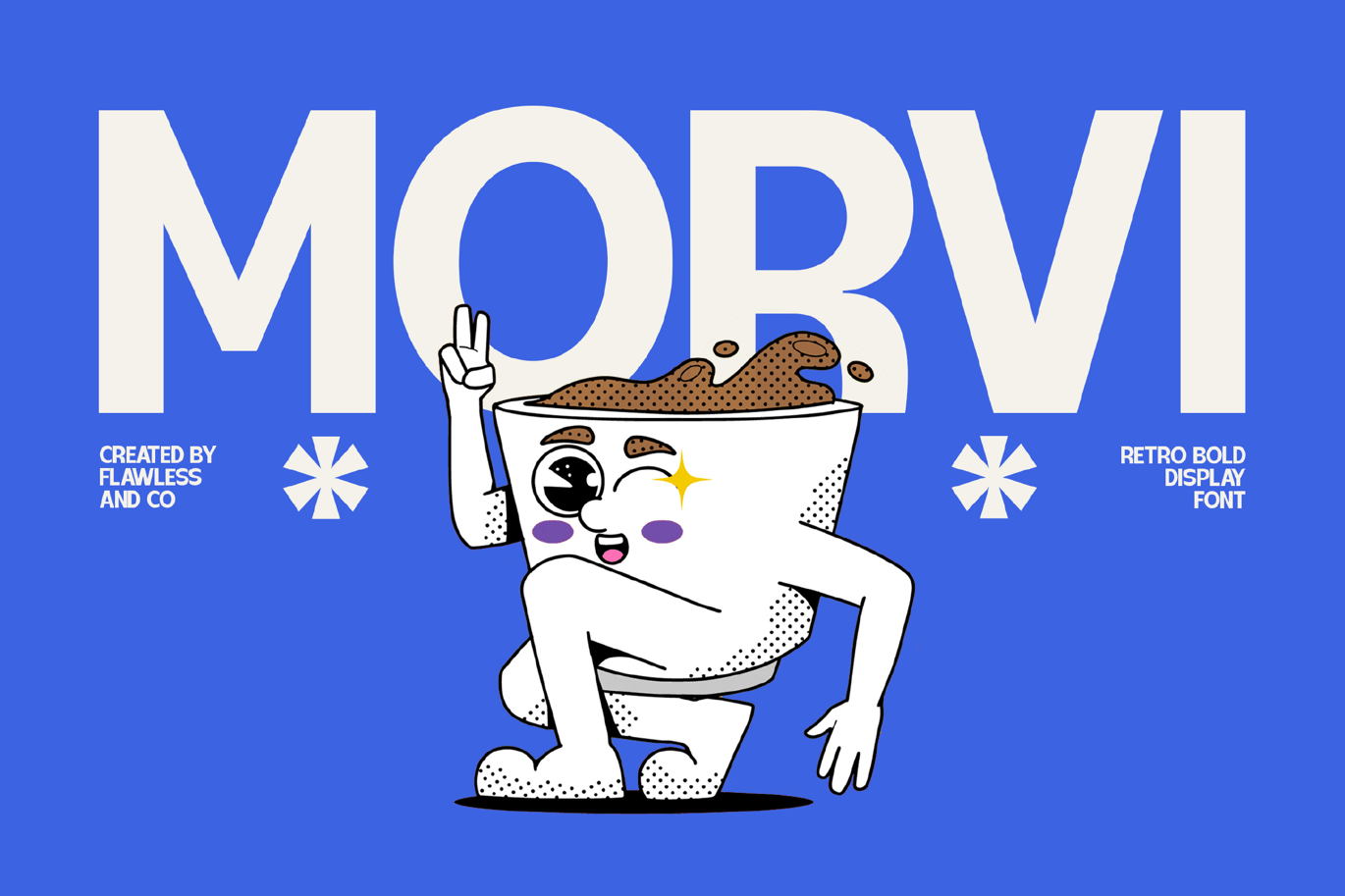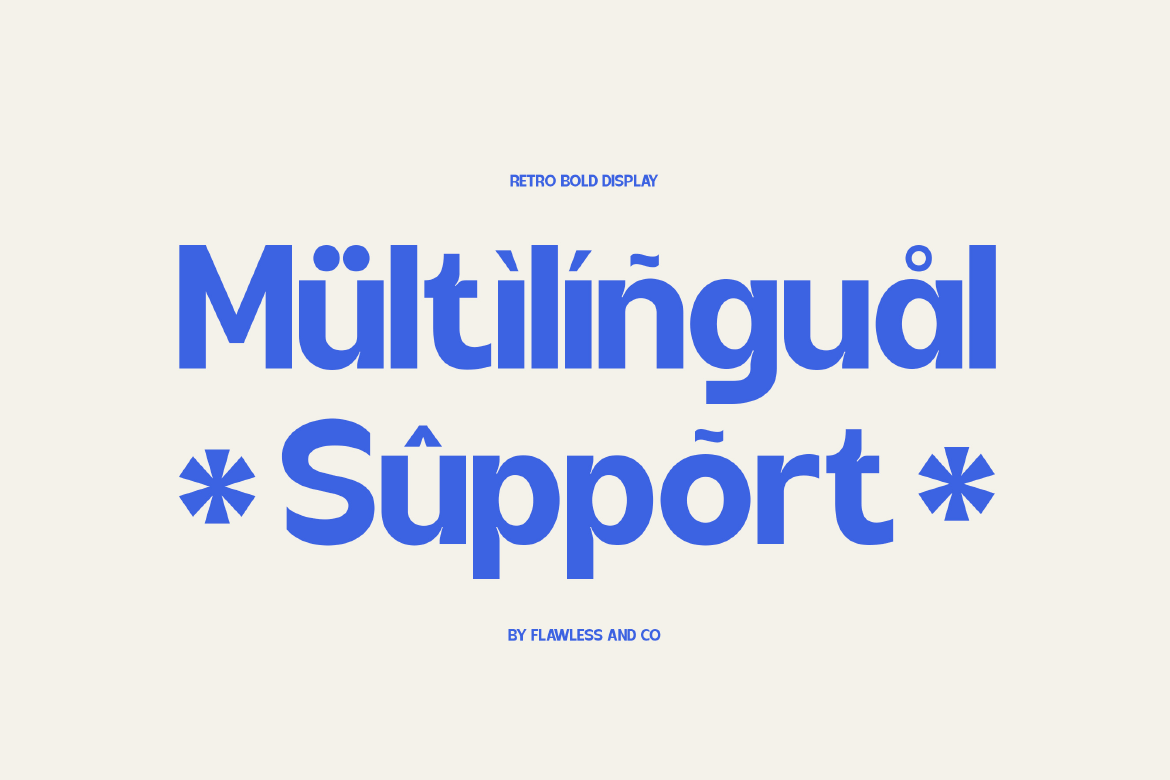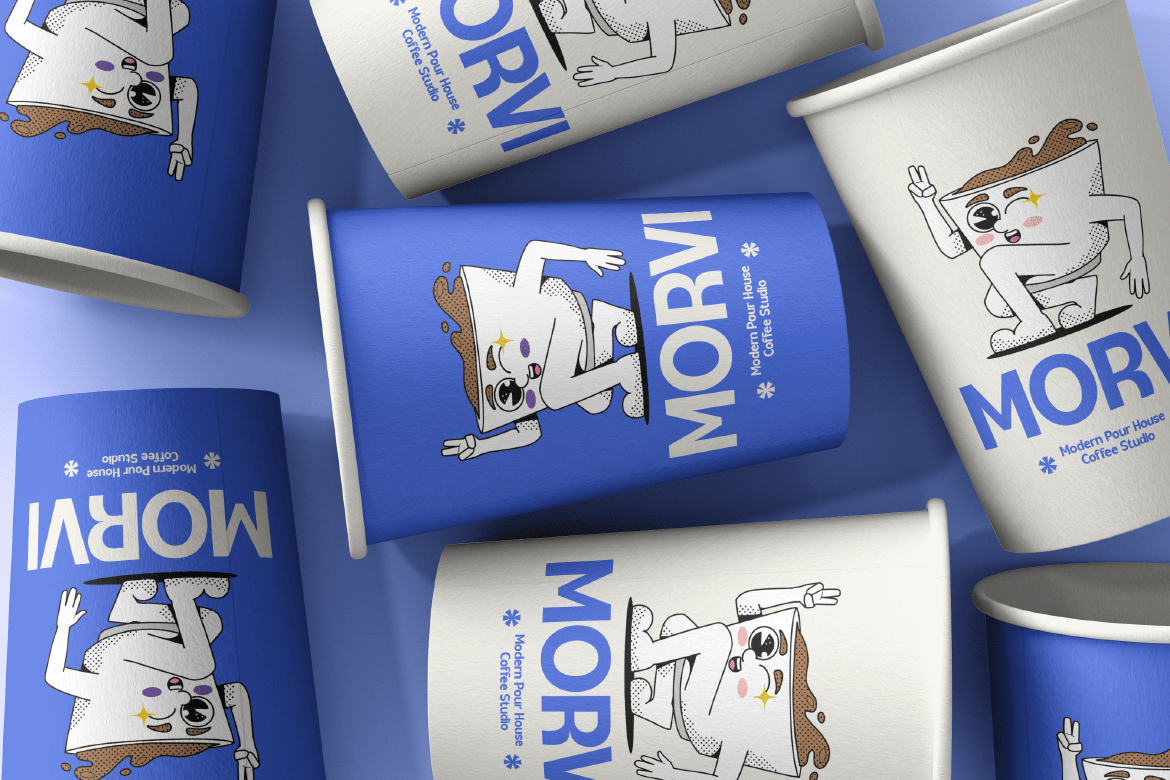
Retro Display Morvi Font is a versatile typeface ideal for various projects, including logos, branding, posters, blog headers, advertisements. The free version includes a full set of uppercase and lowercase letters, available in OTF format.
Retro Display Morvi Font